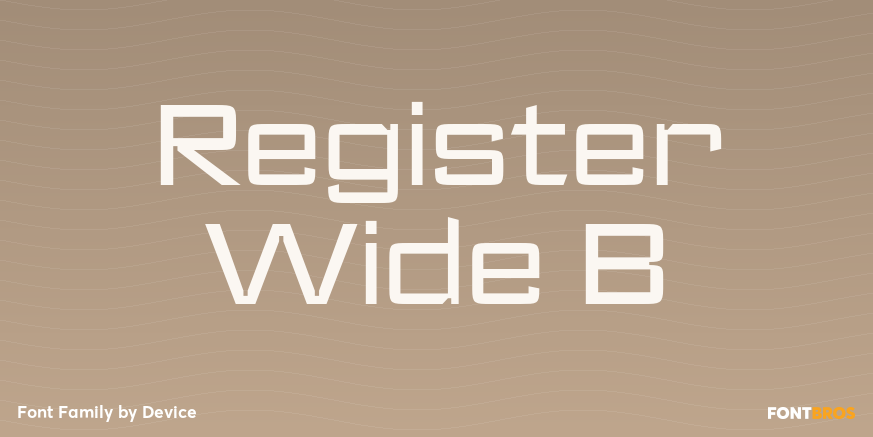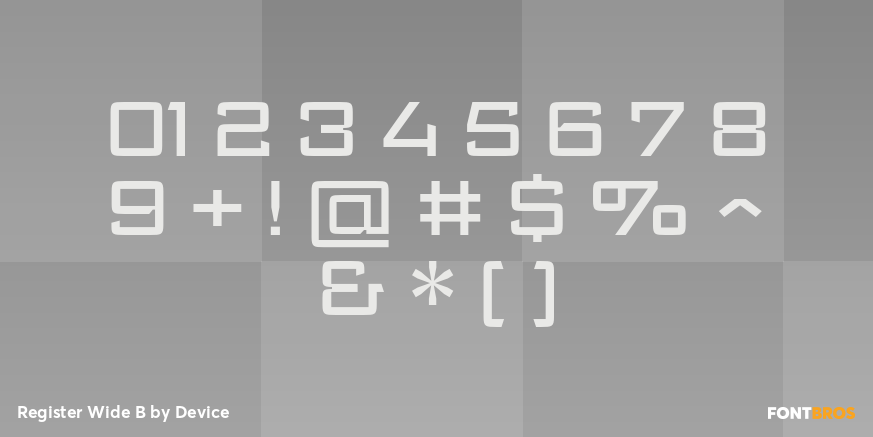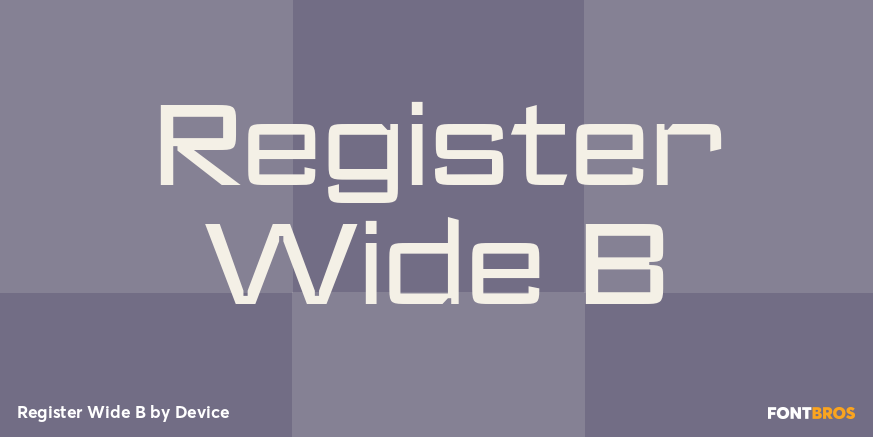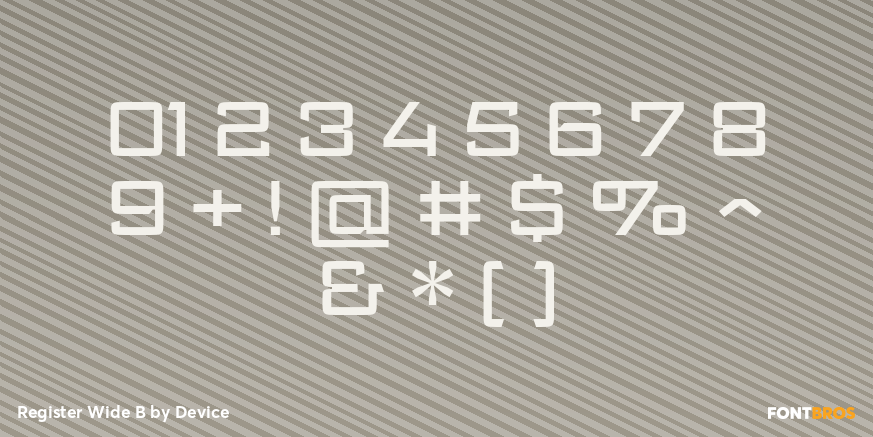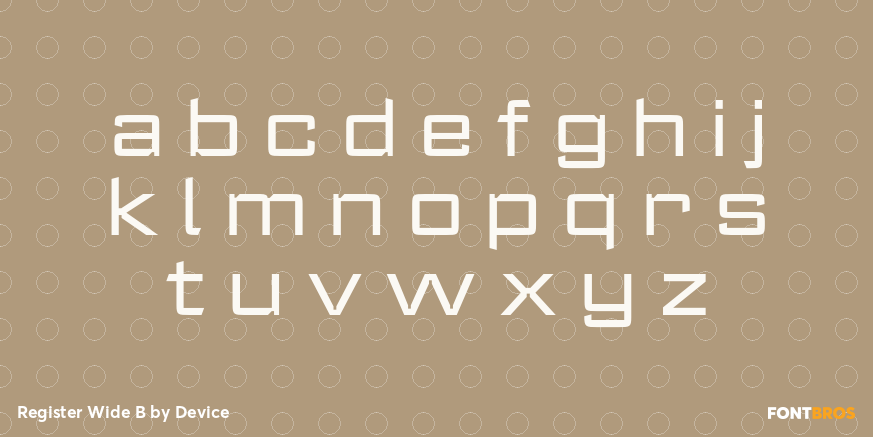
Register Wide B
Register Wide B is a futuristic sans serif family with an extended, aerodynamic feel that gives headlines a sharp, forward-moving presence. Its wide proportions and clean construction make it a strong choice for work that needs a technical, modern voice without losing clarity.
Sold as a 6-style family by Device, it includes Extra Light, Medium, and Bold weights with matching italics. That range gives you room to build contrast across branding, posters, packaging, signage, and other display-driven layouts where a sleek, contemporary look matters.
If you want a type family that feels streamlined and distinctly modern, this one is especially well suited to logos, campaign graphics, and editorial titles that benefit from width, rhythm, and a futuristic edge.